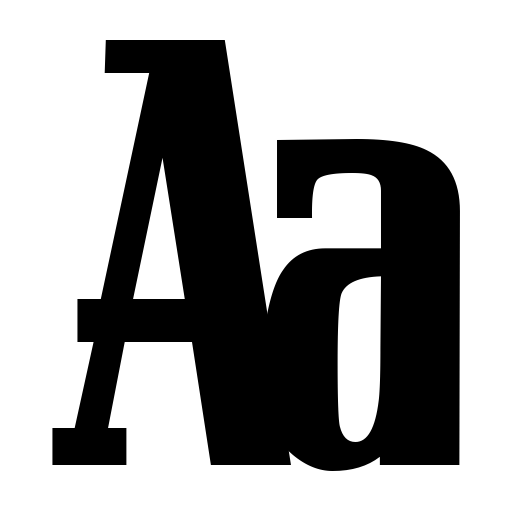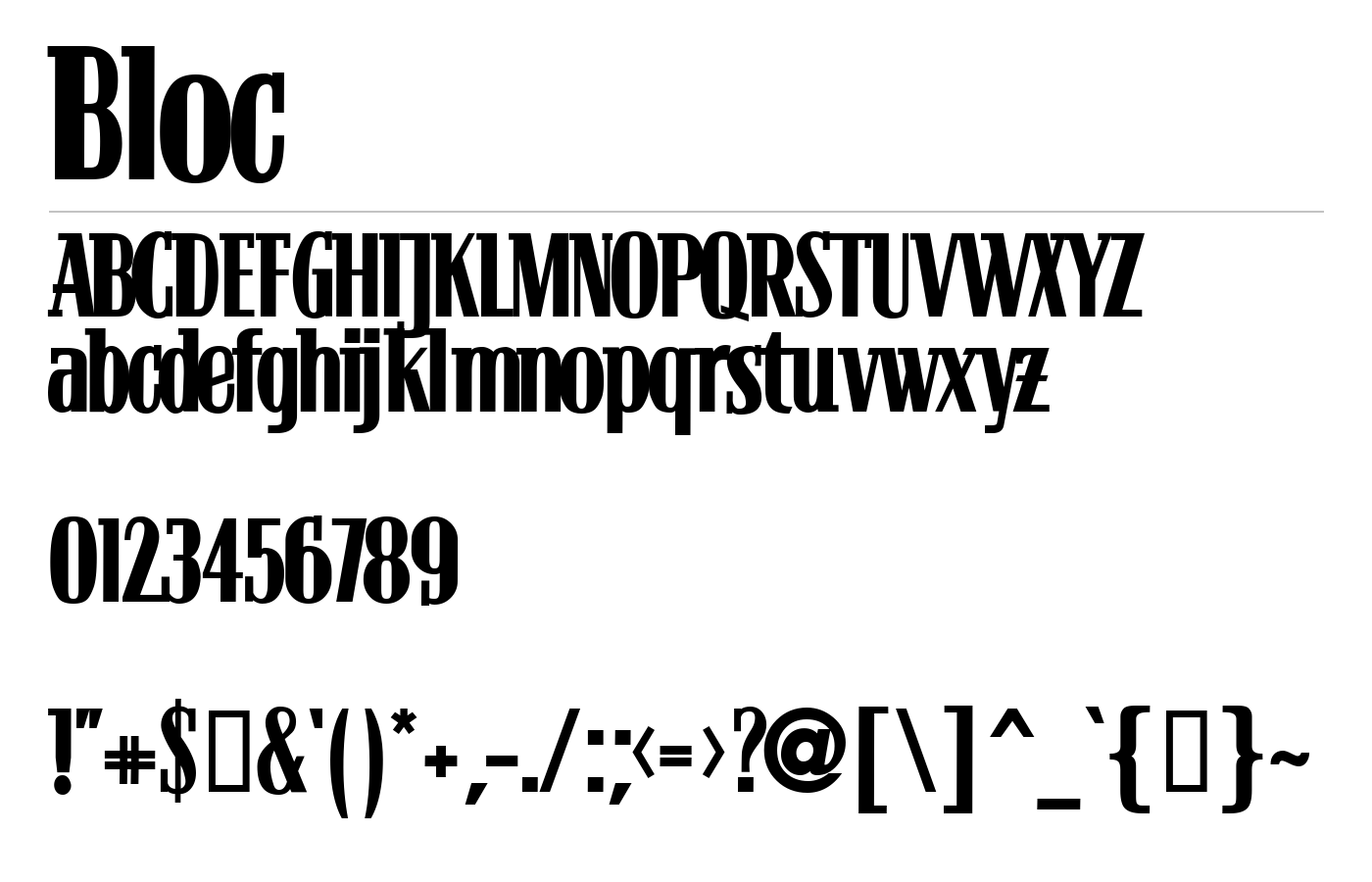
Bloc Regular is a bold, condensed serif font with a strong vertical emphasis and high contrast between thick and thin strokes, giving it a striking and authoritative presence. Its sharp, bracketed serifs and tall x-height make it ideal for eye-catching headlines, logos, and editorial use where a bold yet refined style is needed. This font communicates confidence and sophistication, making it perfect for fashion, luxury branding, and impactful display purposes.
Bloc Regular Font